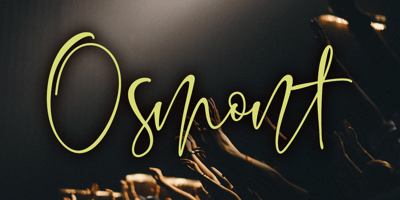
Osmont Font Family was designed by Ront Jorse and published by Jorsetype. Osmont contains 1 styles and family package options. Osmont a work that is purely a result of handwriting, has a natural characteristic. this is perfect for invitations, signatures, blogs, social media, business cards, product brands.Osmont has Stylistic standard, Stylistic Alternates and ligatures. and includes uppercase and lowercase letters, numbers and punctuation marks.FILE INCLUDE Osmont (OpenType,PUA)OpenType features can be accessed by using OpenType smart programs such as Adobe Photo Shop, Adobe Illustrator, Adobe Indesign, Corel Draw and Microsoft Office.special greetings for all, all of us all smoothly in running the routine